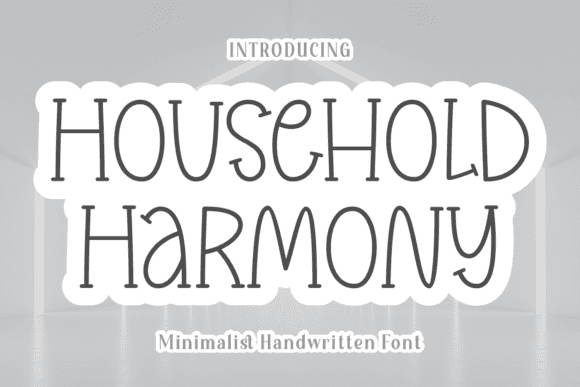
Household Harmony Font for Crafting, Logos and Print Projects
The Household Harmony Font is a carefully crafted typeface that combines warmth and clarity, making it a go-to choice for creators seeking a clean yet personable look.
Whether you're designing for vinyl crafts, brand identities, greeting cards, or home printables, this font provides a reliable typographic foundation.
- DIY crafters, branding designers, home business owners, print shop creatives, scrapbook enthusiasts
- Logos, signs, invitations, labels, quote prints, vinyl crafts, greeting cards
- Clear and well-spaced letterforms
- Perfect for print, cut, and web applications
- Balances professional style with creative warmth
Q: What kind of font is Household Harmony?
A: It's a smooth, modern display font designed for clarity and warmth across both digital and print media.
Q: Can I use it to design a business logo?
A: Absolutely — its balance of charm and readability makes it ideal for logos and branding elements.
Q: Are any alternate characters or ligatures included?
Q: Will it look good in print designs?
A: Yes — the clean structure ensures excellent print clarity for everything from cards to signs.
Q: Can beginners use this font easily?
A: Definitely — it's designed for simplicity and ease-of-use in both home and professional settings.
| Balanced Display Typeface | Ideal for branding, signs, and craft lettering |
| Easy to Read & Print | Looks clean and polished on any printable surface |
| Creative Yet Professional | Fits both casual crafting and business branding |